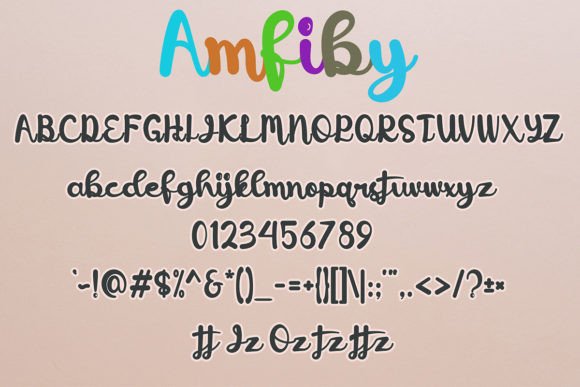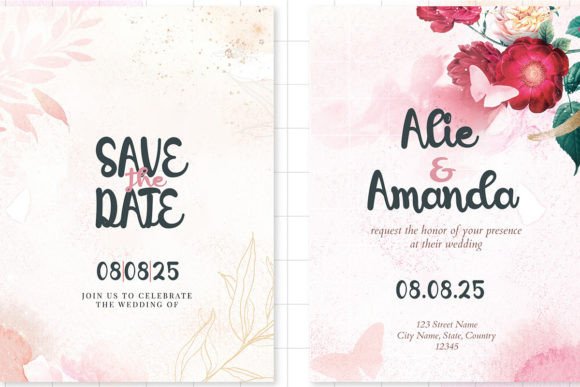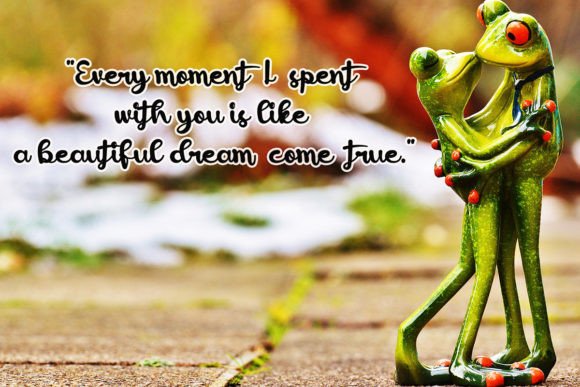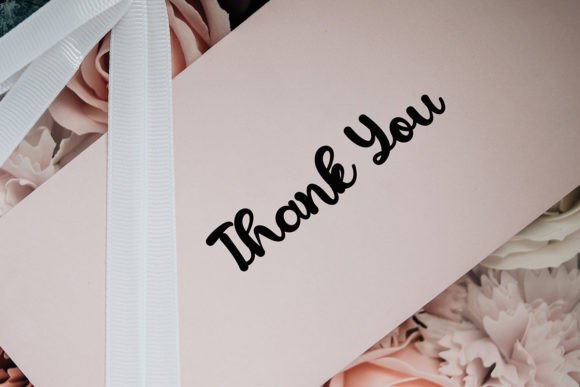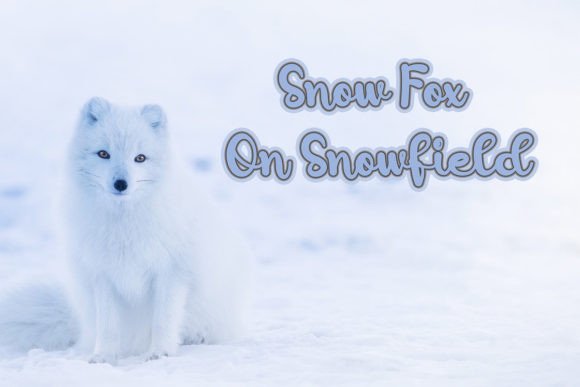
Amfiby Font
About Amfiby Font
Introducing “Butterfly,” a cute and beautiful handwritten font designed to bring charm and elegance to your creative projects. This font is versatile, making it suitable for a variety of applications, including gorgeous wedding invitations, beautiful stationery art, eye-catching social media posts, and any other design endeavor where a touch of loveliness is desired.
The handwritten style of “Butterfly” adds a personal and authentic touch to your text. Its cute and beautiful design is crafted to bring a sense of delicacy and whimsy, making it a perfect choice for projects that require a touch of sweetness.
In wedding invitations, “Butterfly” becomes a standout font, adding a romantic and elegant feel to the design. Its delicate strokes and cute elements contribute to creating an invitation that is both memorable and visually appealing.
For stationery art, this font enhances the overall aesthetic, making your artwork more charming and delightful. Whether used for illustrations, quotes, or decorative elements, “Butterfly” brings a touch of beauty.
Social media posts benefit from the eye-catching nature of “Butterfly.” Whether used for captions, announcements, or promotional materials, this font adds a cute and beautiful flair that captures attention.
The versatility of “Butterfly” allows it to turn any design idea into a true standout. Its appeal lies in its ability to bring a sense of loveliness and sophistication to a wide range of creative projects.
In summary, “Butterfly” is more than just a font; it’s a design asset crafted to add a cute and beautiful touch to your projects. Whether applied to wedding invitations, stationery art, social media posts, or any other creative endeavor, this font is designed to make each design a true standout with its delightful and charming style.